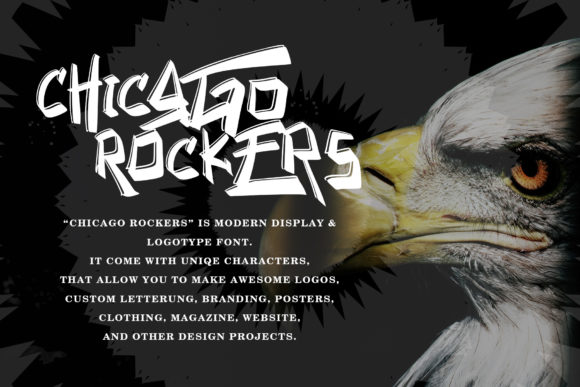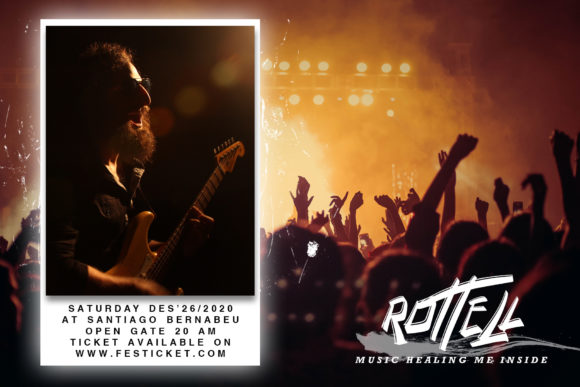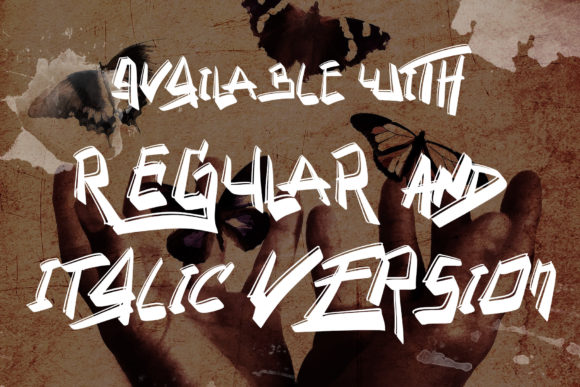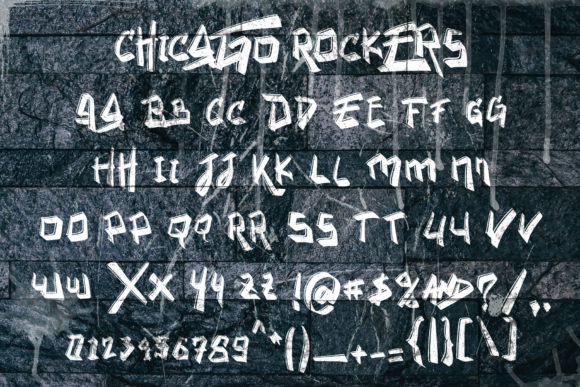
Introduction to Chicago Rockers Font
Chicago Rockers is a playful and unique display font.
Get inspired by its original approach to lettering .
Key Features of Chicago Rockers Font
Why Choose Chicago Rockers Font?
Chicago Rockers Font offers exceptional quality and versatility, making it a valuable addition to your design toolkit. Whether you’re creating for personal projects or commercial use, Chicago Rockers Font delivers professional results.